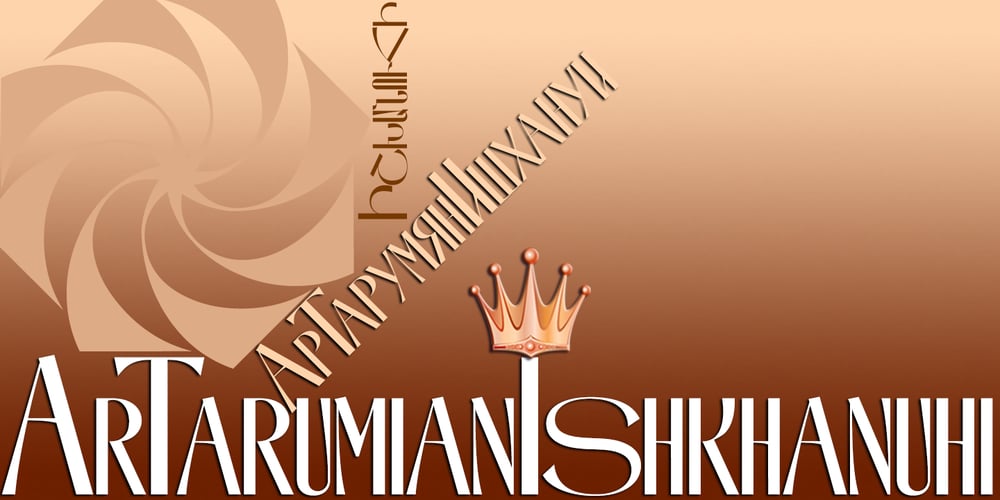
ArTarumianIshkhanuhi Font Family was designed by Ruben Hakobyan (Tarumian) and published by Tarumian. ArTarumianIshkhanuhi contains 1 styles and family package options. As well as ArTarumianIshkhan font ArTarumianIshkhanuhi (Ishkhanuhi from Arm. “Princess” was created as a modern stylization of Armenian medieval lapidary letters. As his feminine, more delicate form.